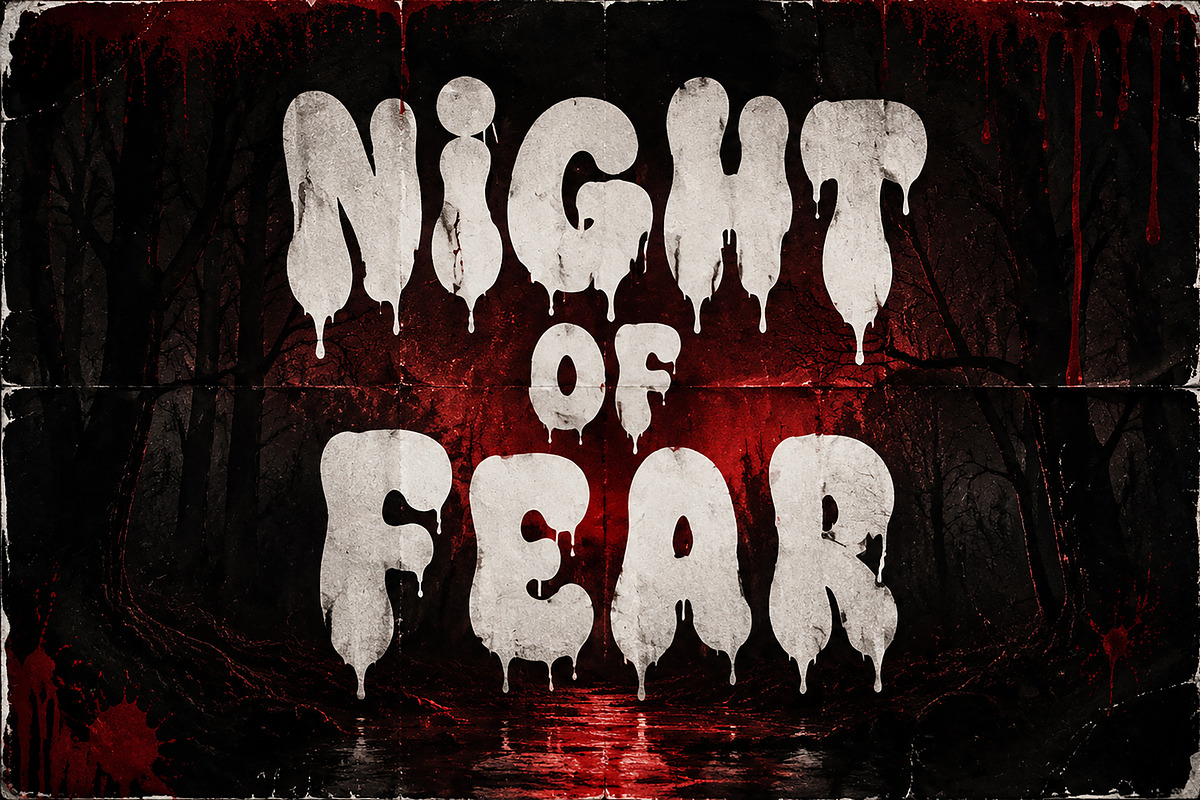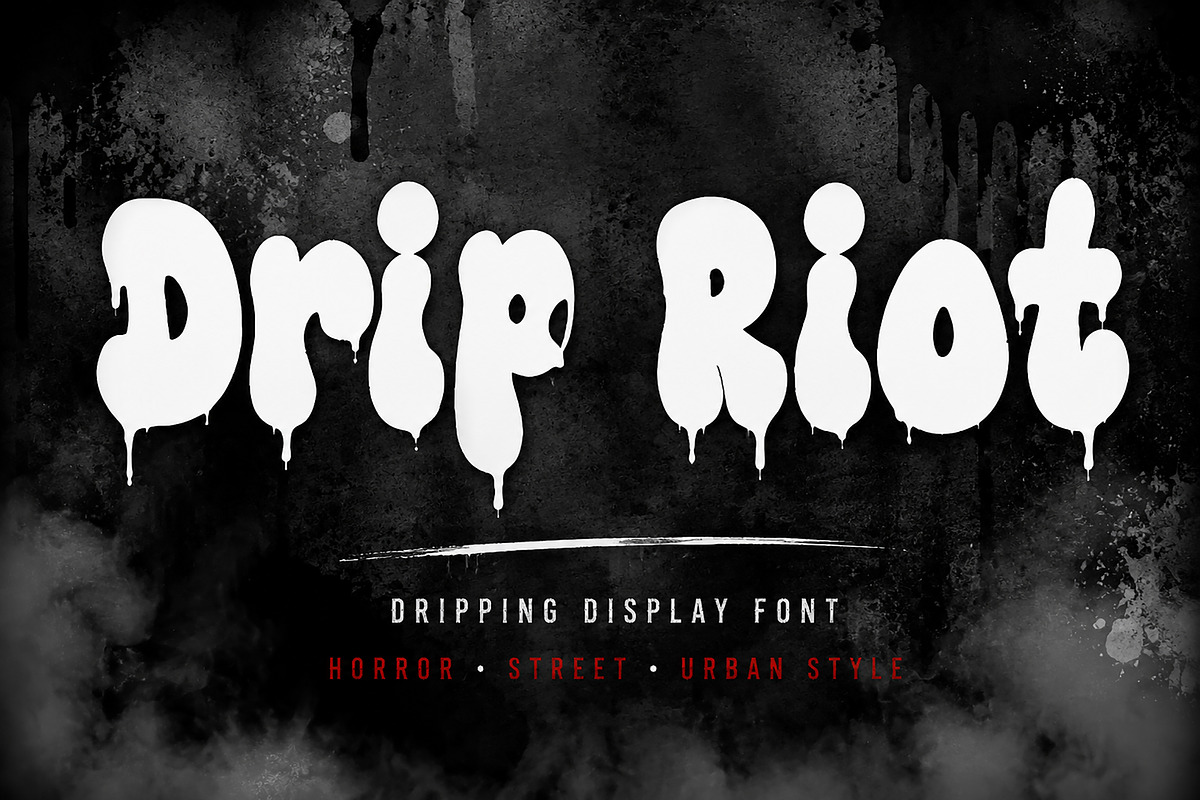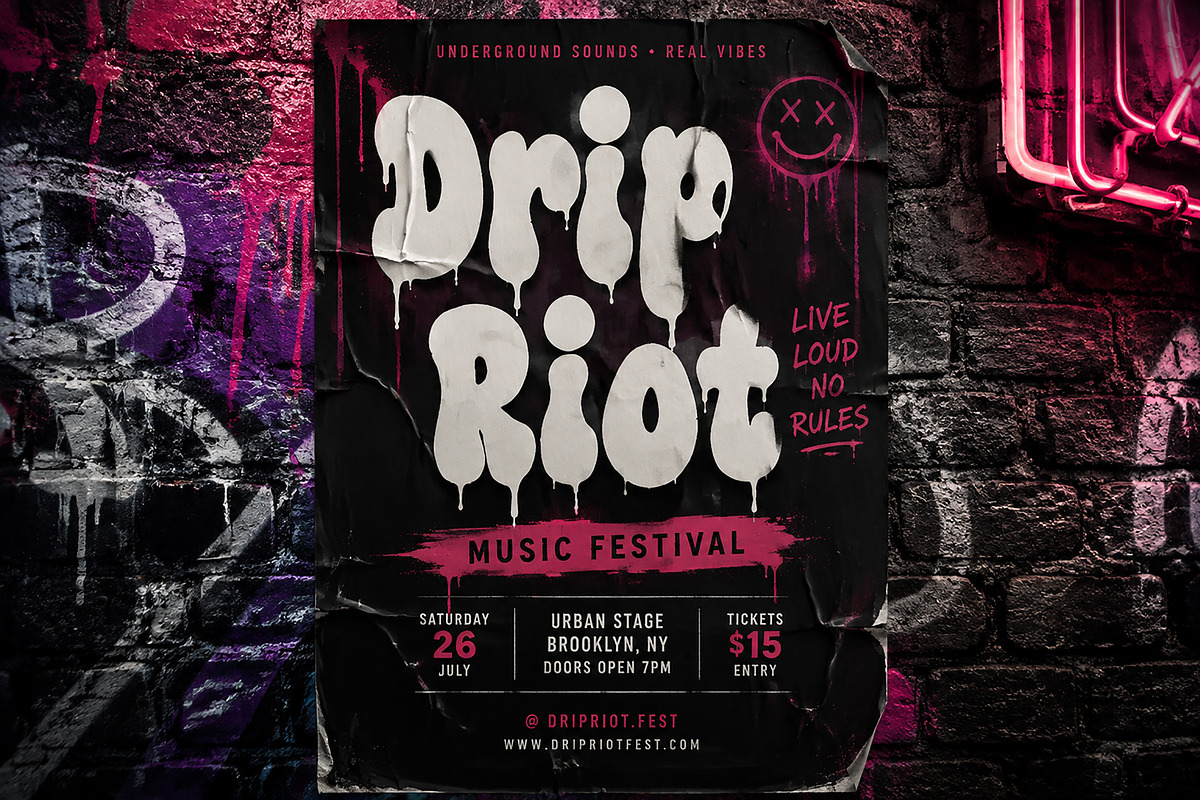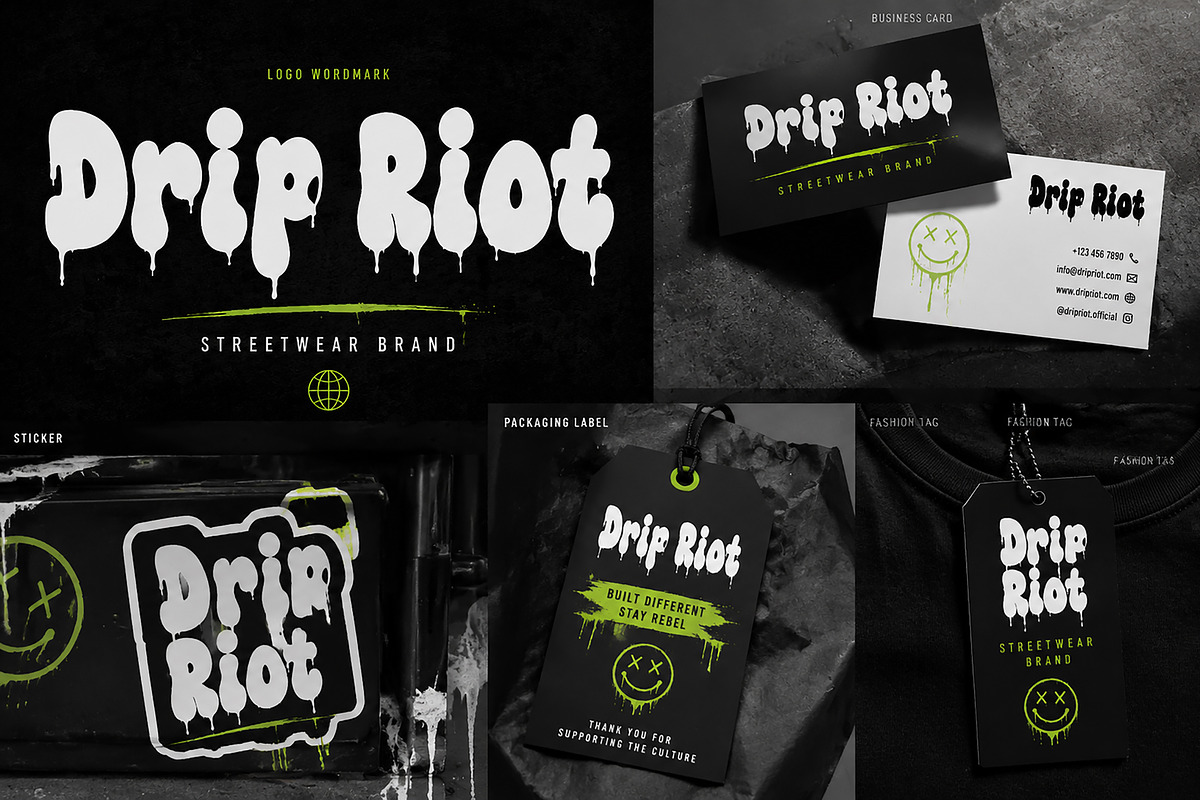
Drip Riot – Dripping Display Font
Bring a bold, rebellious, and dark aesthetic to your designs with Drip Riot, a unique dripping display font inspired by horror, street culture, graffiti, and underground visuals.
Designed with heavy rounded shapes and dramatic liquid drip details, Drip Riot is perfect for creating eye-catching designs that demand attention. Its raw and edgy appearance makes it ideal for posters, branding, merchandise, album covers, event graphics, social media designs, and more.
Whether you are designing a Halloween project, streetwear collection, music artwork, gaming graphics, or urban branding, Drip Riot adds an unforgettable underground atmosphere to your work.
Horror & Halloween Designs
Streetwear Branding
Music Album Covers
Festival Posters
Event Flyers
Gaming Graphics
YouTube Thumbnails
Logo & Wordmark Design
Merchandise & Apparel
Stickers & Packaging
Social Media Artwork
✔ Bold Dripping Display Style
✔ Unique Horror / Urban Aesthetic
✔ Strong Visual Impact
✔ Perfect for Headlines and Large Text
✔ Professional Display Typeface
✔ Easy to Use in Creative Projects